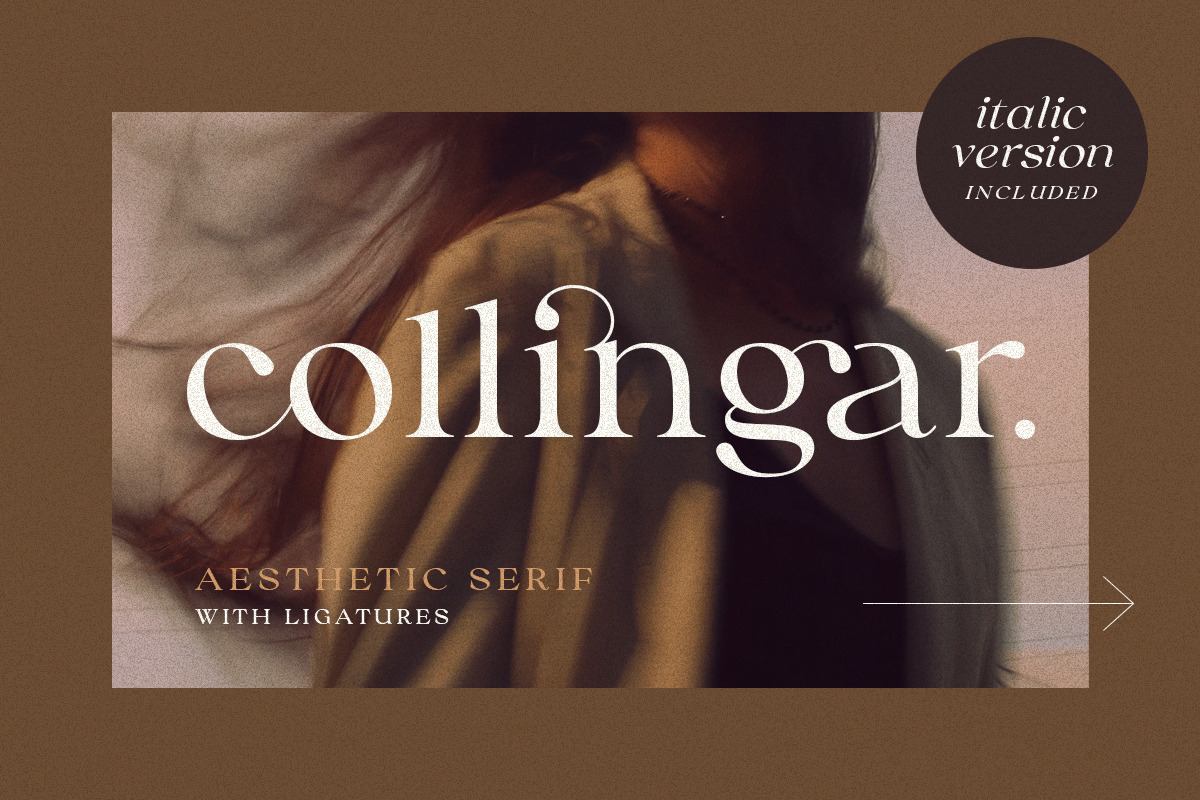
Collingar – Aesthetic Serif Font Free Download is a beautifully crafted typeface that combines timeless serif elegance with modern design flair. Featuring stylish curves, high-contrast strokes, and graceful details, this font is perfect for fashion branding, editorial layouts, wedding stationery, packaging design, and luxury logos.
Its refined yet approachable appearance makes it ideal for both digital and print use, offering versatility and sophistication in equal measure. Whether you're designing bold headlines or elegant body text, Collingar – Aesthetic Serif Font Free Download delivers charm, clarity, and character.
Elevate your typography with Collingar – Aesthetic Serif Font Free Download, and bring a sense of classic beauty and modern polish to every design. Perfect for creatives who appreciate elegant, editorial-style typefaces with a fashionable edge.